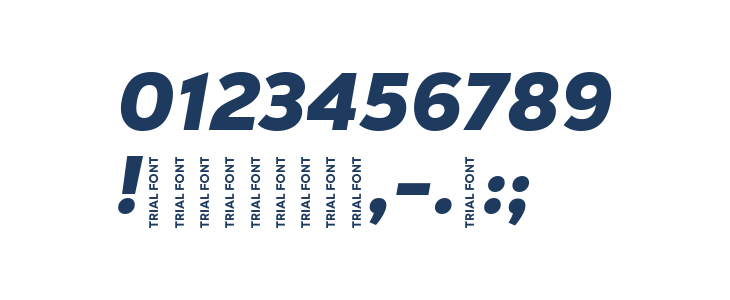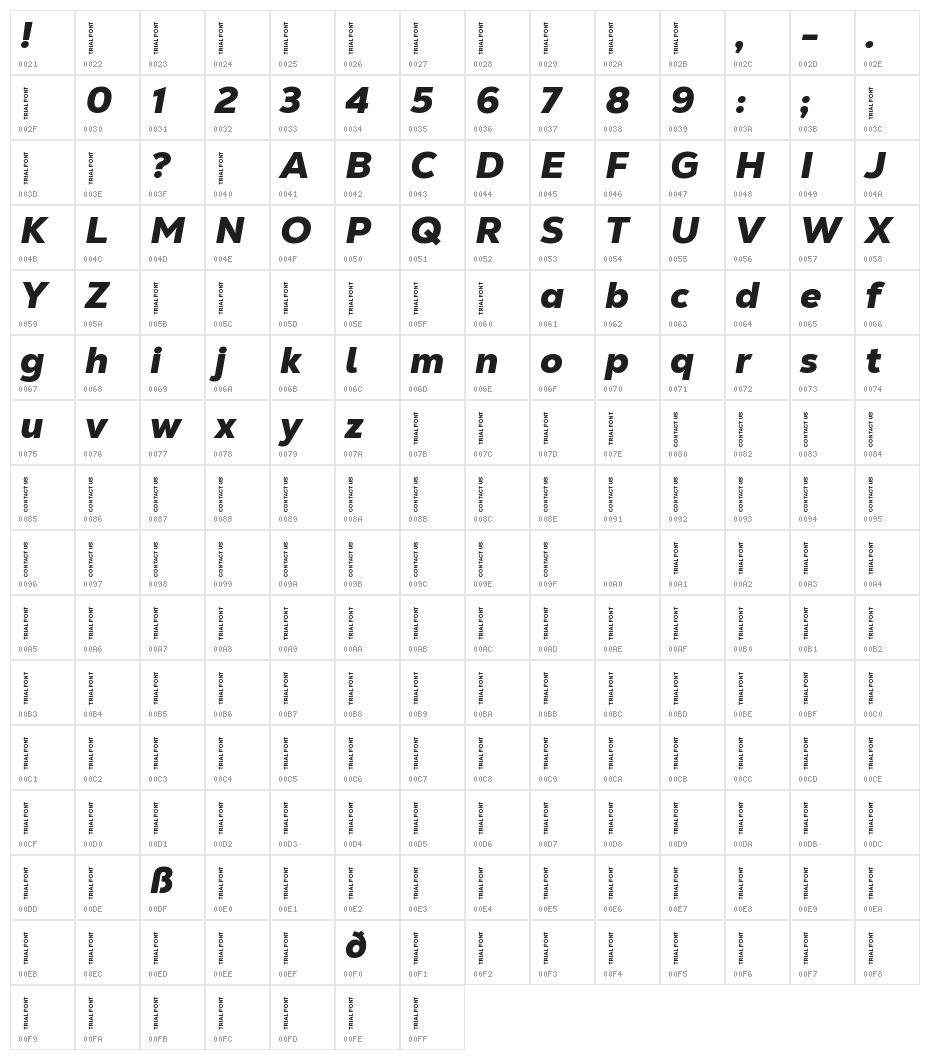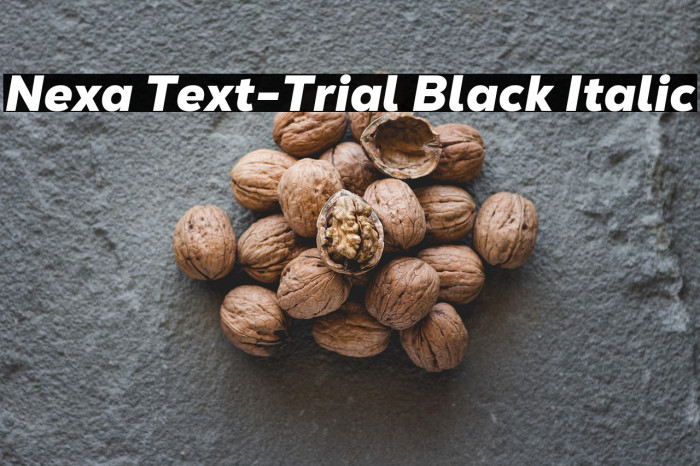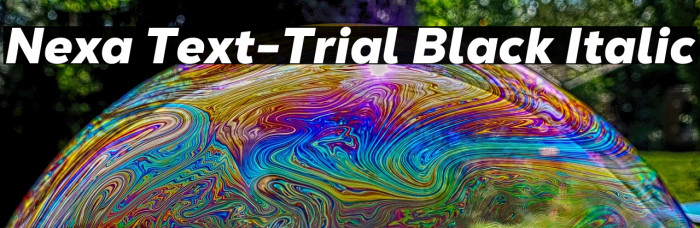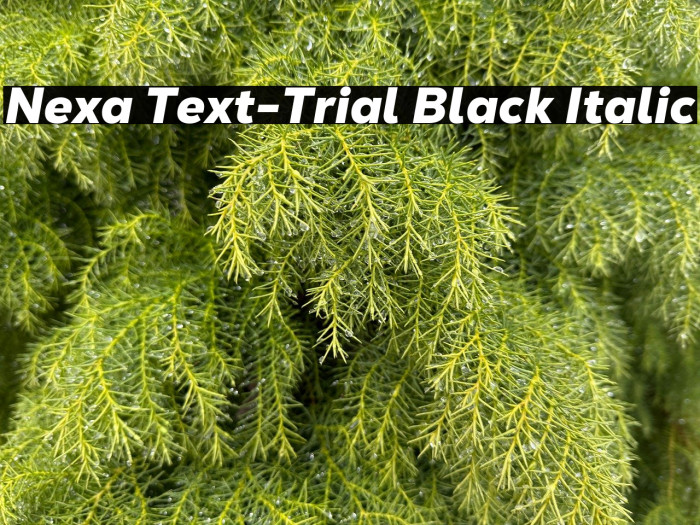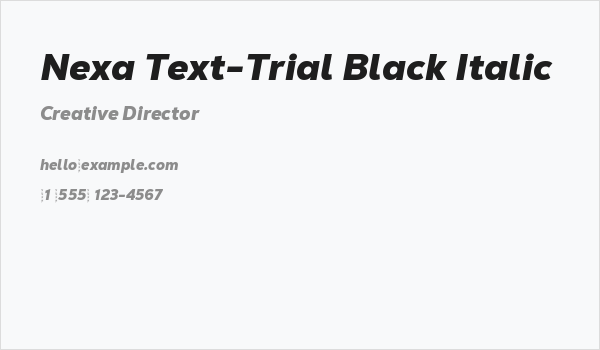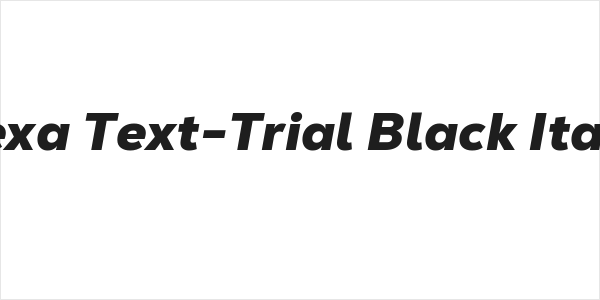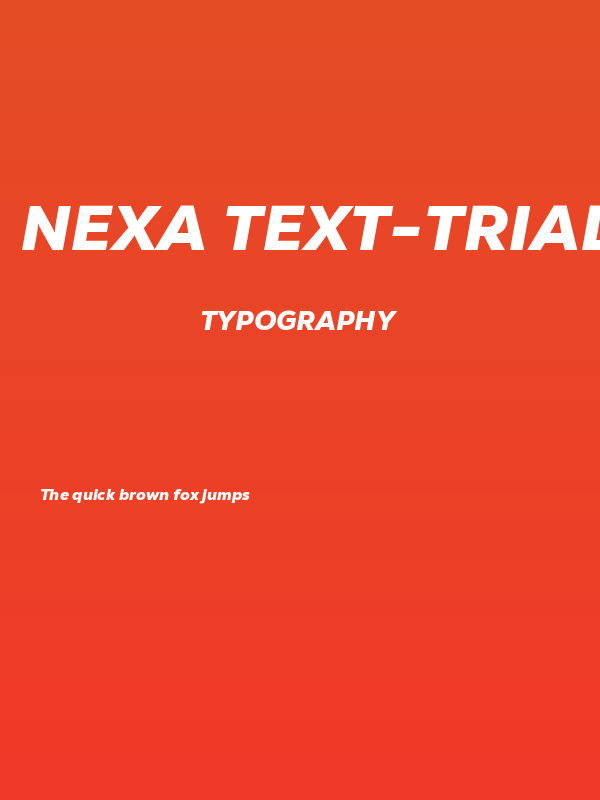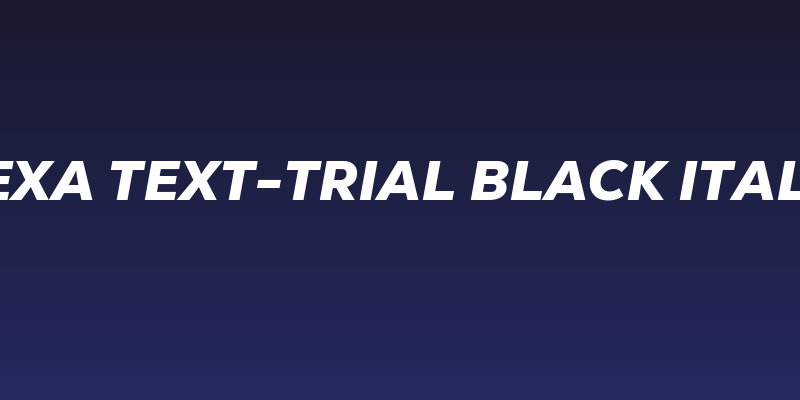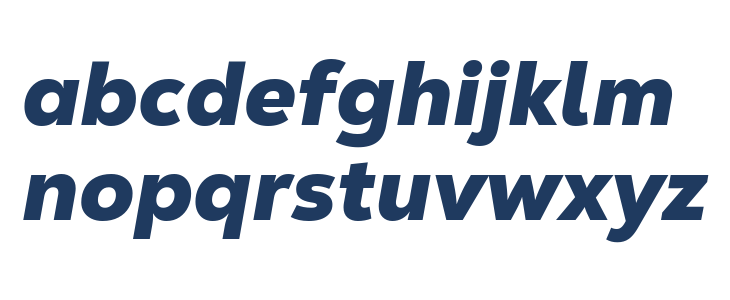
Nexa Text-Trial Black Italic Font
Nexa Text-Trial Black Italic Description
This font exhibits a bold and dynamic presence with its thick, italicized strokes. The characters are designed with a modern aesthetic, featuring smooth curves and a slight forward slant that adds a sense of motion and energy. The uppercase and lowercase letters are well-proportioned, maintaining a consistent weight throughout. The numerals are robust and clear, ensuring readability. Special characters are crafted with the same attention to detail, making them suitable for various applications. The overall design is clean and contemporary, making it ideal for projects that require a strong visual impact.